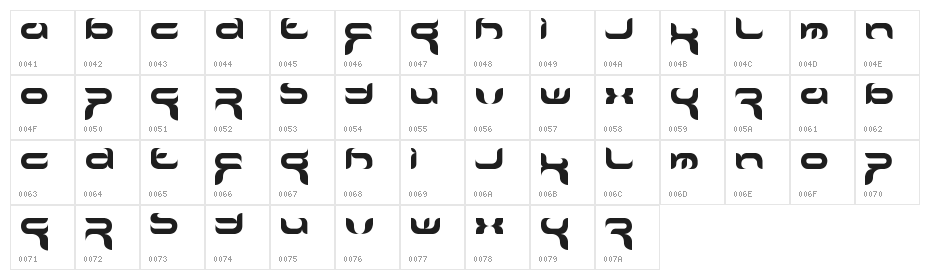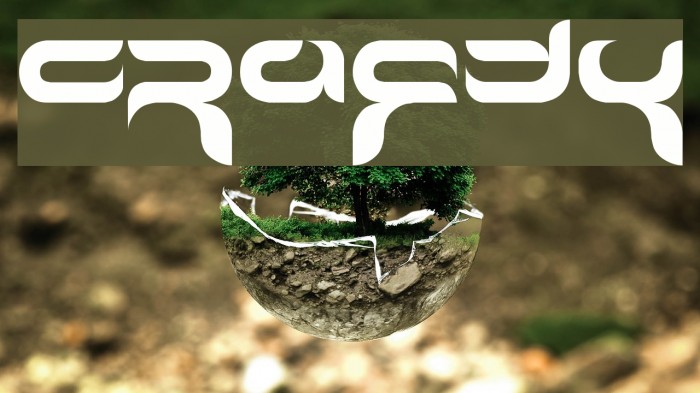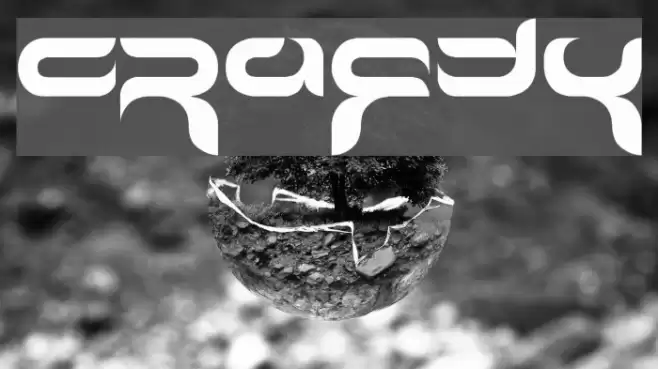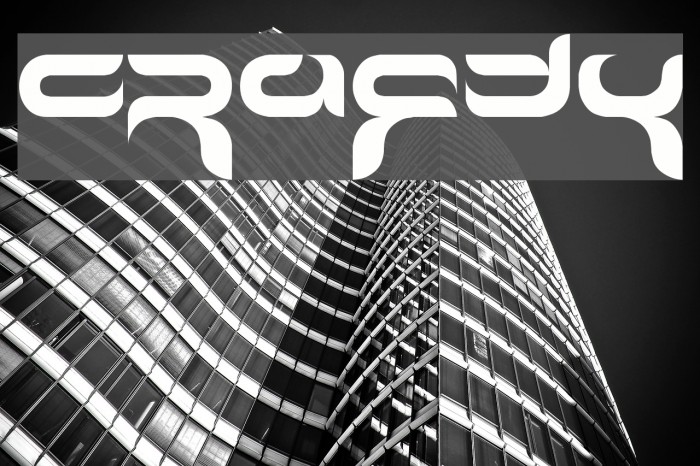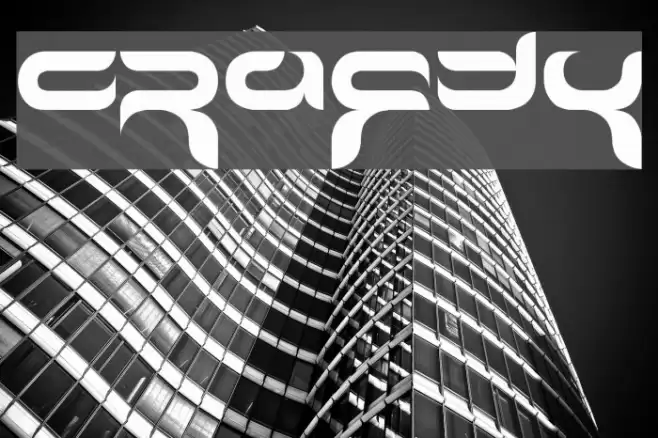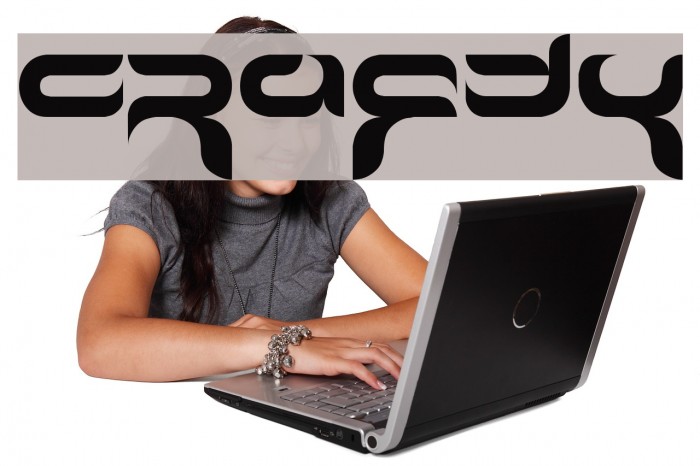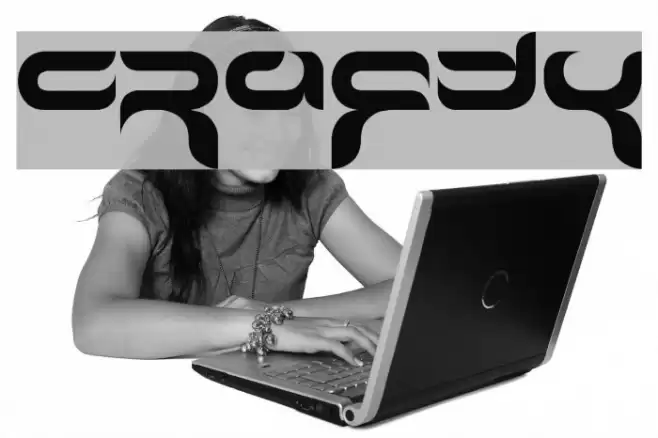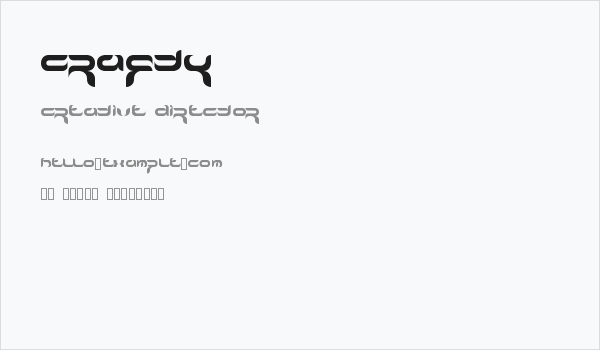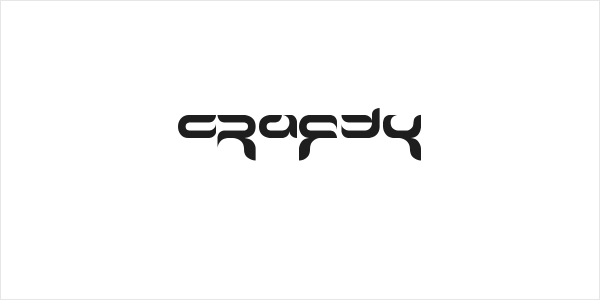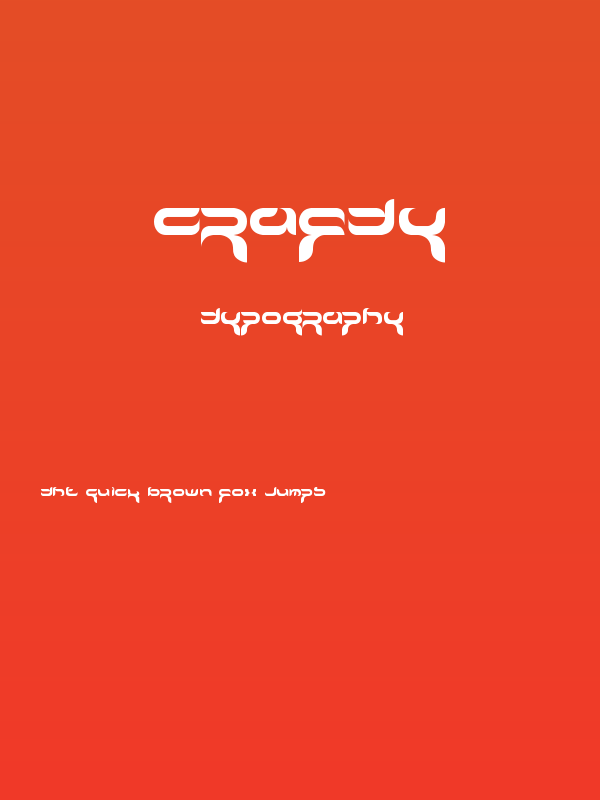
crafty Font
crafty Description
This font features a highly stylized and futuristic design, characterized by its bold and geometric shapes. The characters are crafted with sharp angles and unique curves, giving it a distinct and modern appearance. The uppercase and lowercase letters share a consistent design language, emphasizing symmetry and balance. The numerals and special characters follow the same aesthetic, ensuring a cohesive look across all glyphs. The font's boldness and unique style make it stand out, ideal for creative and eye-catching designs.
| Proposed Projects | Ideal for sci-fi themed projects, technology branding, video game titles, and modern posters. |